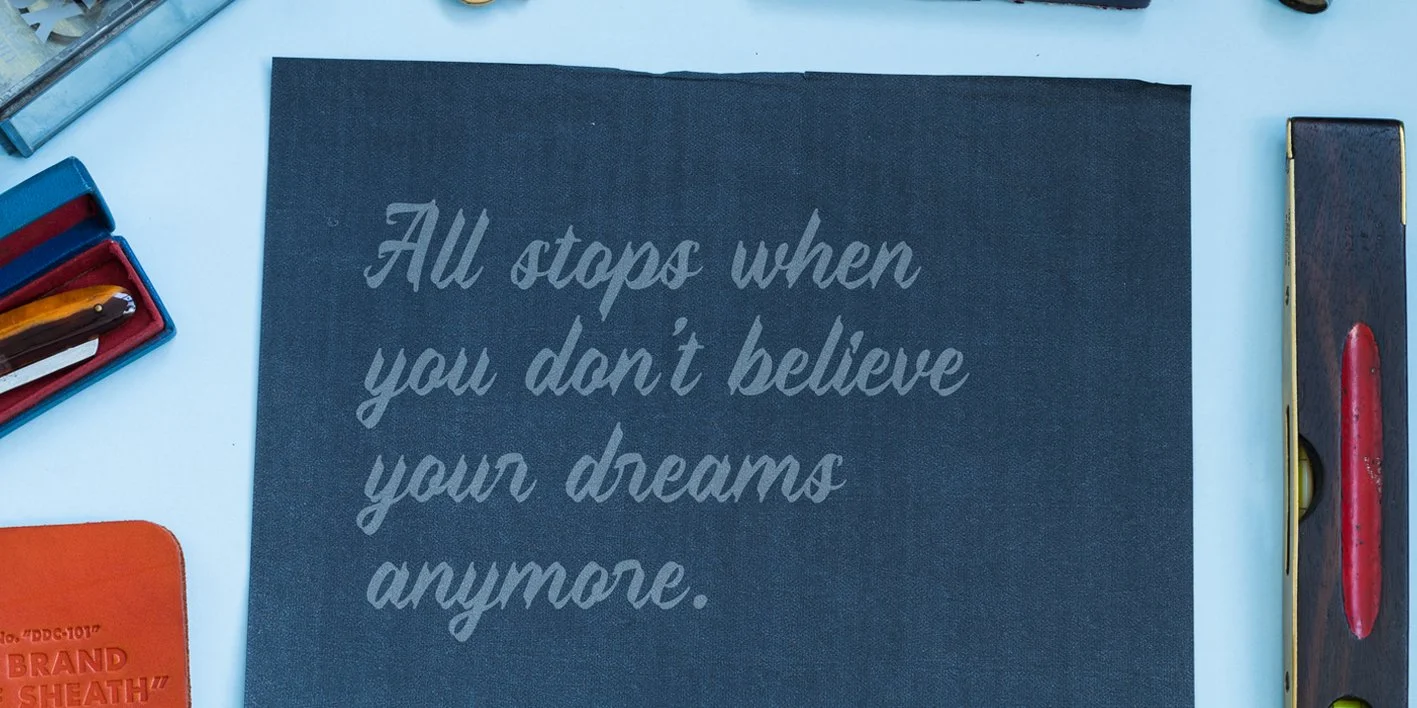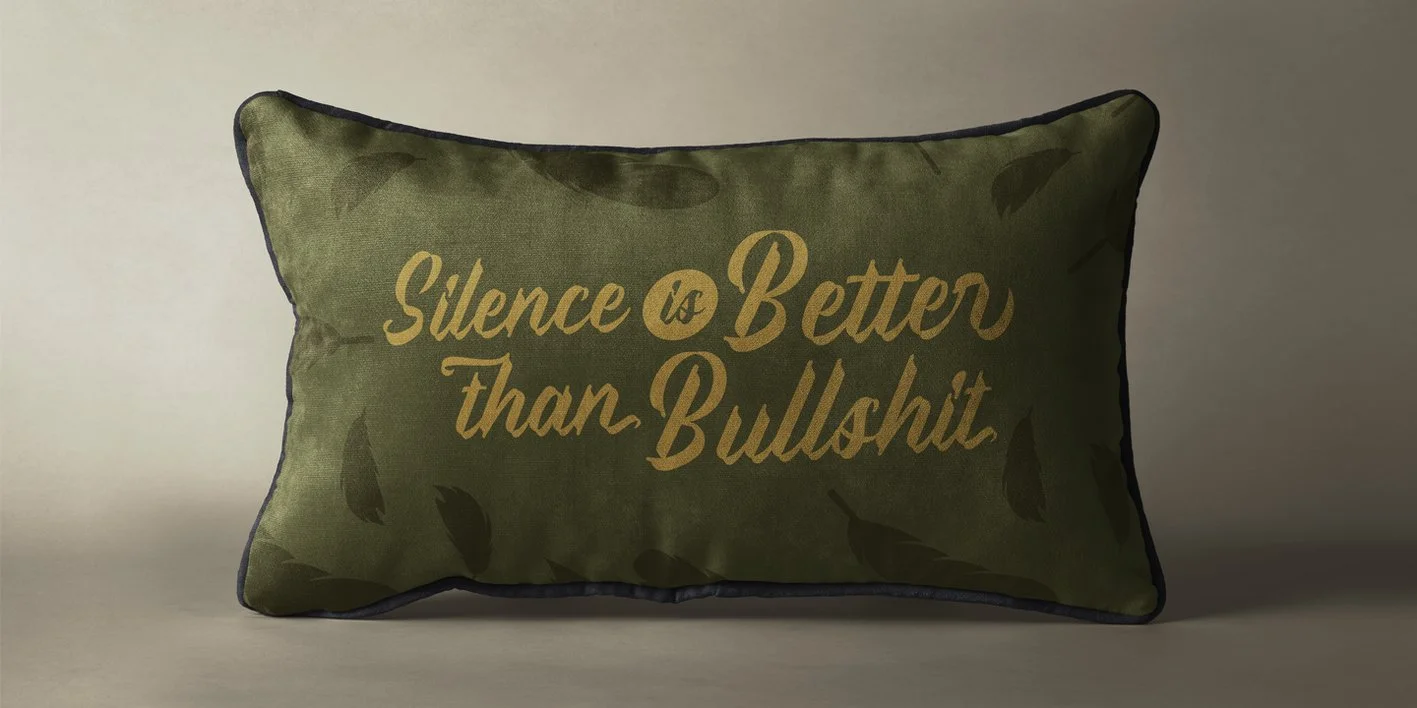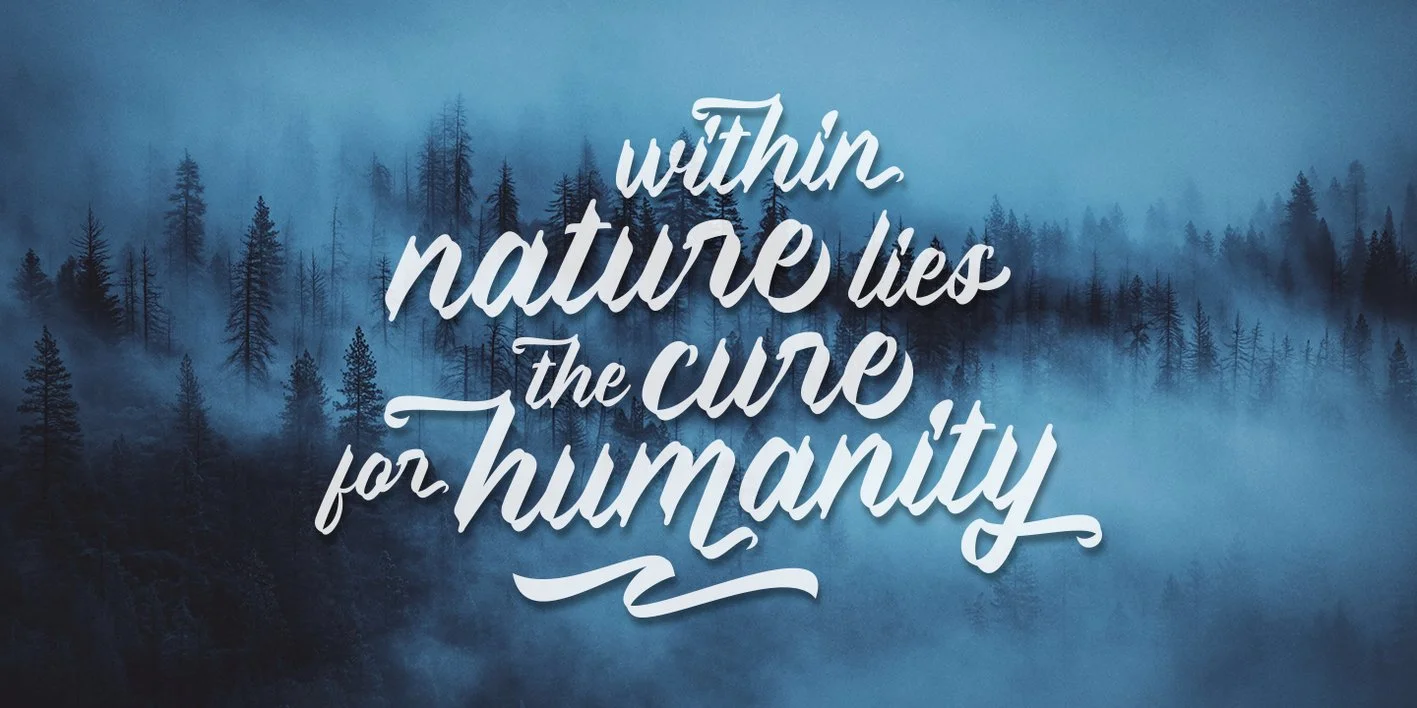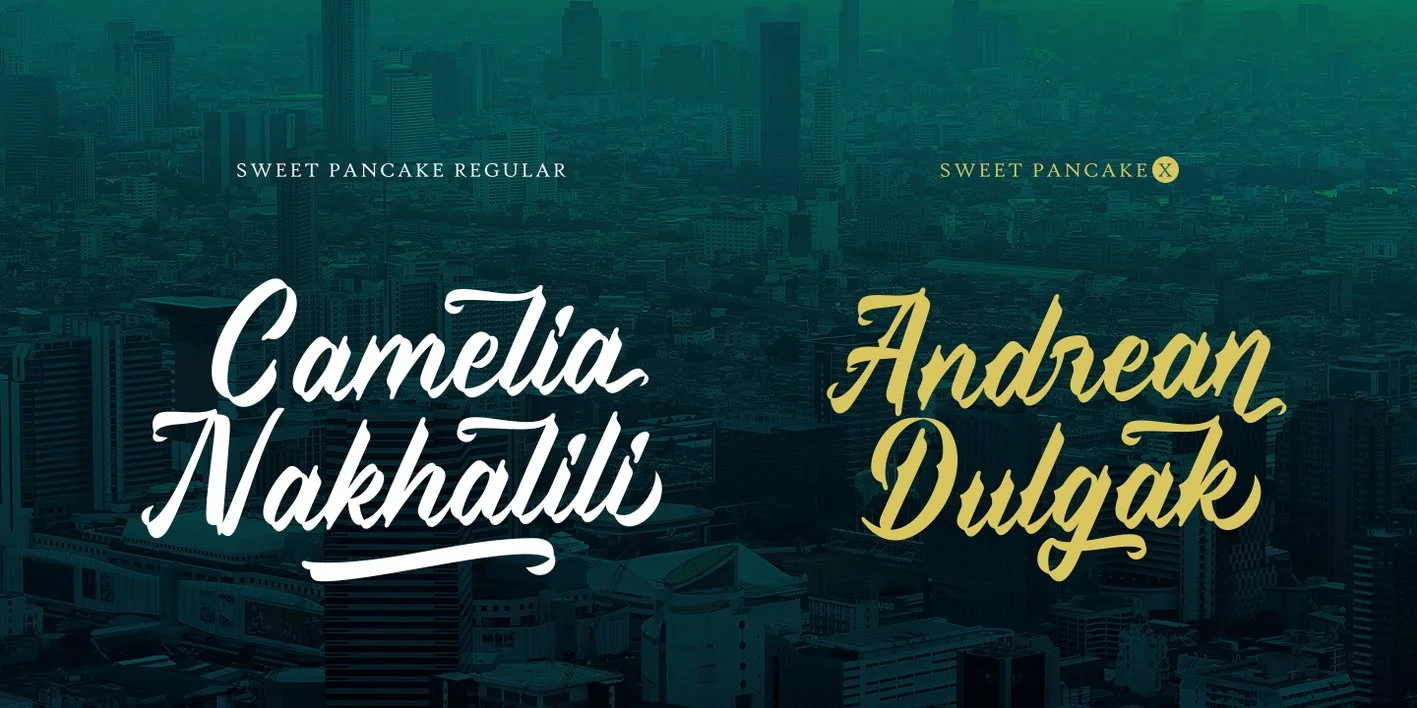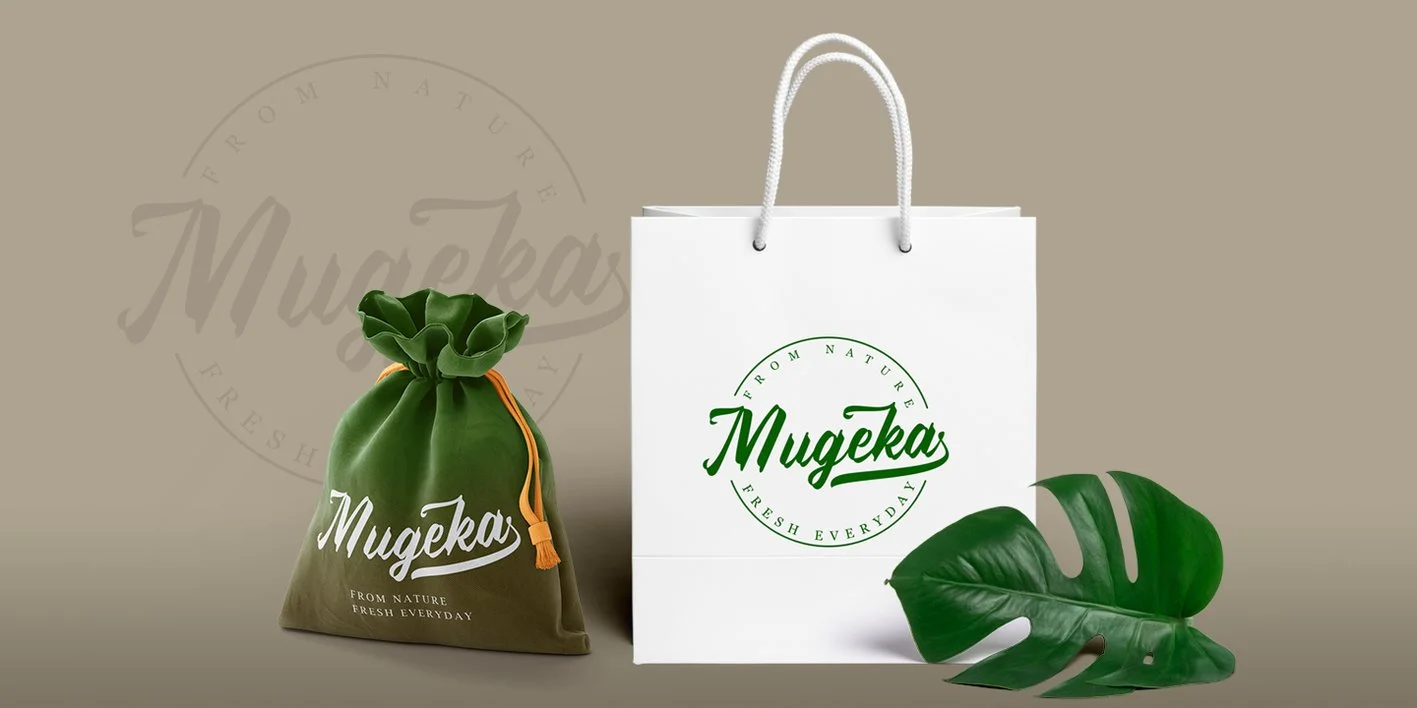
Sweet Pancake Font
Typography shapes perception at a subconscious level. Sweet Pancake leverages consistent type colour across continuous text to make every composition feel considered. The typeface brings a versatile sensibility to a broad range of creative disciplines, with refined proportions and careful stroke modulation that holds up whether the work is print-first or screen-first.
In practice, Sweet Pancake proves particularly effective for annual reports, editorial layouts, web design, poster creation, environmental graphics. Designers reaching for it find that the type decisions feel resolved rather than laboured — a useful quality when client timelines are tight.
The range of applications extends to advertising campaigns, product labels, packaging design, logo design. That breadth is deliberate: the proportions and spacing were stress-tested across a wide range of mock briefs before the typeface was finalised.
Sweet Pancake sits comfortably alongside both classic and contemporary typefaces in multi-font hierarchies. It takes direction rather than competing for attention — a quality that experienced designers know is harder to find than it appears.
Independent studios handling packaging and editorial work find Sweet Pancake a reliable choice for projects that demand both personality and restraint. The design avoids the self-conscious quirkiness that dates quickly, settling instead for considered distinctiveness that holds up over time.